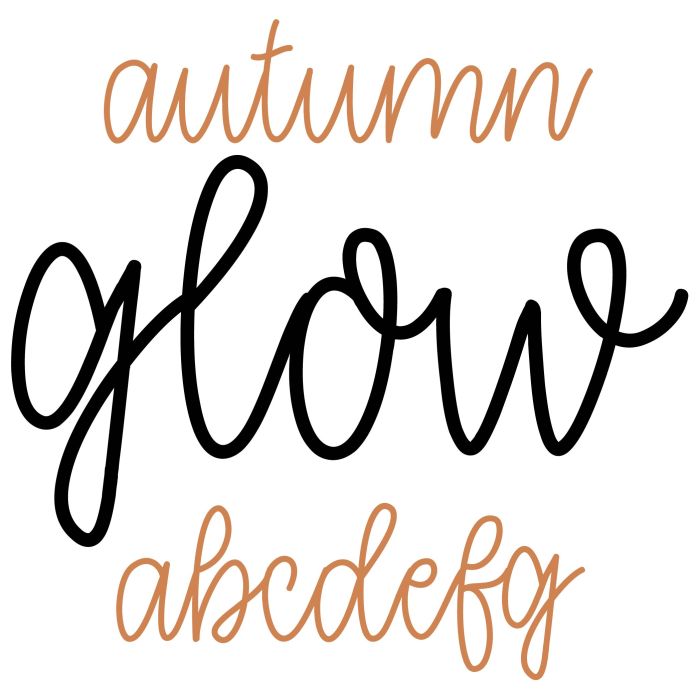
Autumn glow handwritten script font
A pretty cursive handwriting font fun for Halloween and holiday crafts, planners, calendars, signs, cards, monograms, and personalization projects.